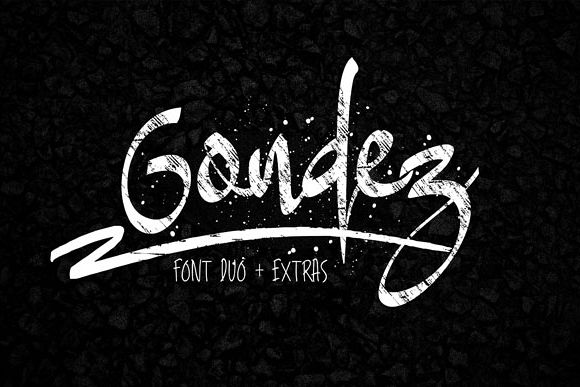
Gondez Font
Present a duo of hand-scripted fonts, guaranteed to deliver a loud, proud & carefree message. Included in the pack is additional marker swashes in font form for you and 60 hand sketched elemets vector.The Fonts Included. Gondez Font Regular - a casual, arty Hand Script consisting of upper and lowercase letters, punctuation and numerals.Stylistic alternates for all the characters are also availablegondez.ttf , gondez.otf , gondez brush.ttf , gondez brush.otfAsaina Font is an uppercase only complimentary typeface which also supports international languages.asaina font.ttf , asaina font.otf , asaina bold.ttf , asaina bold.otfGondez Font Brushes - 54 Marker style brushes accessed by typing upper or lowercase keys. Be sure to check out all the previews above by clicking on them and scrolling down to see all the fonts and ideas and inspiration for using this font duo.